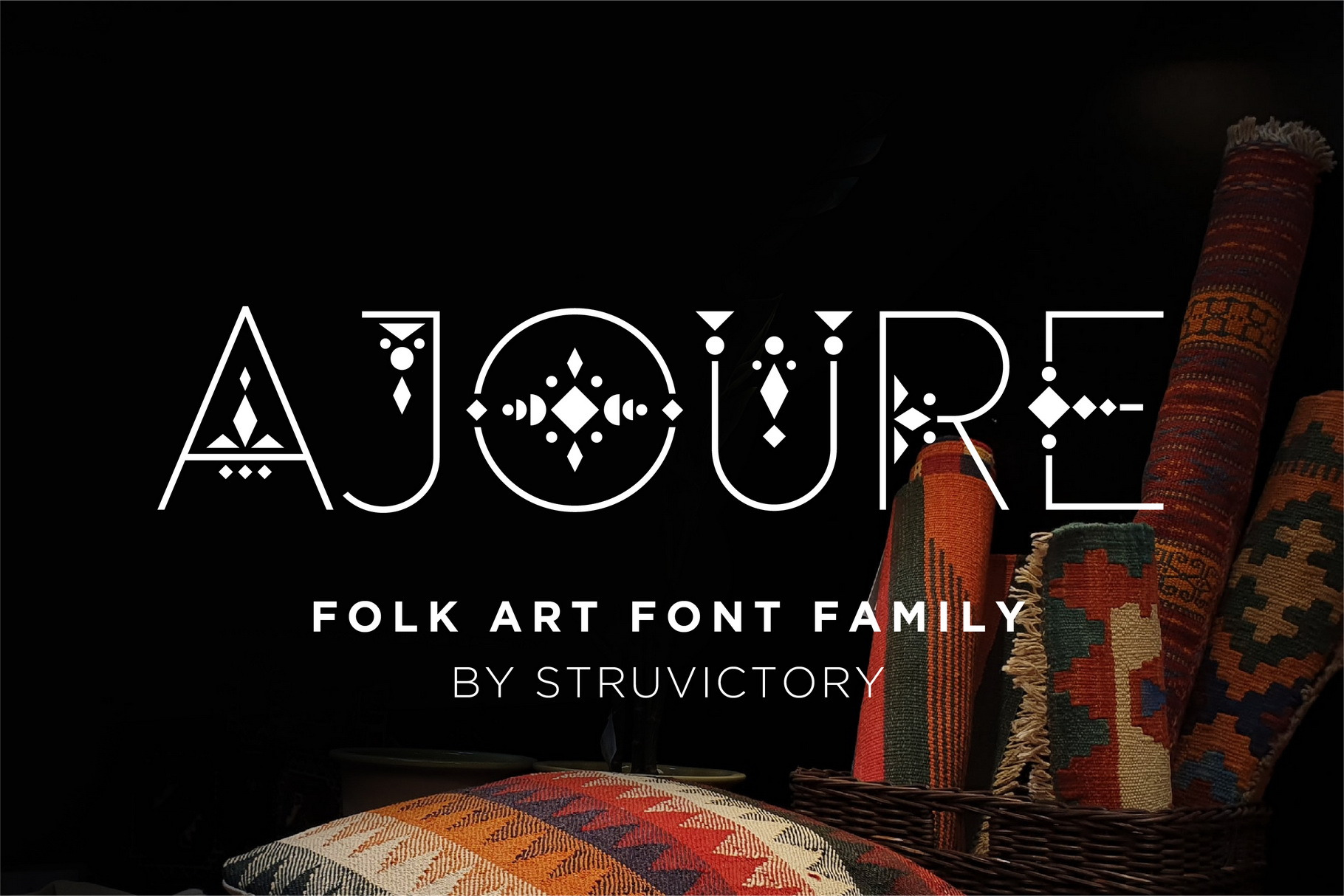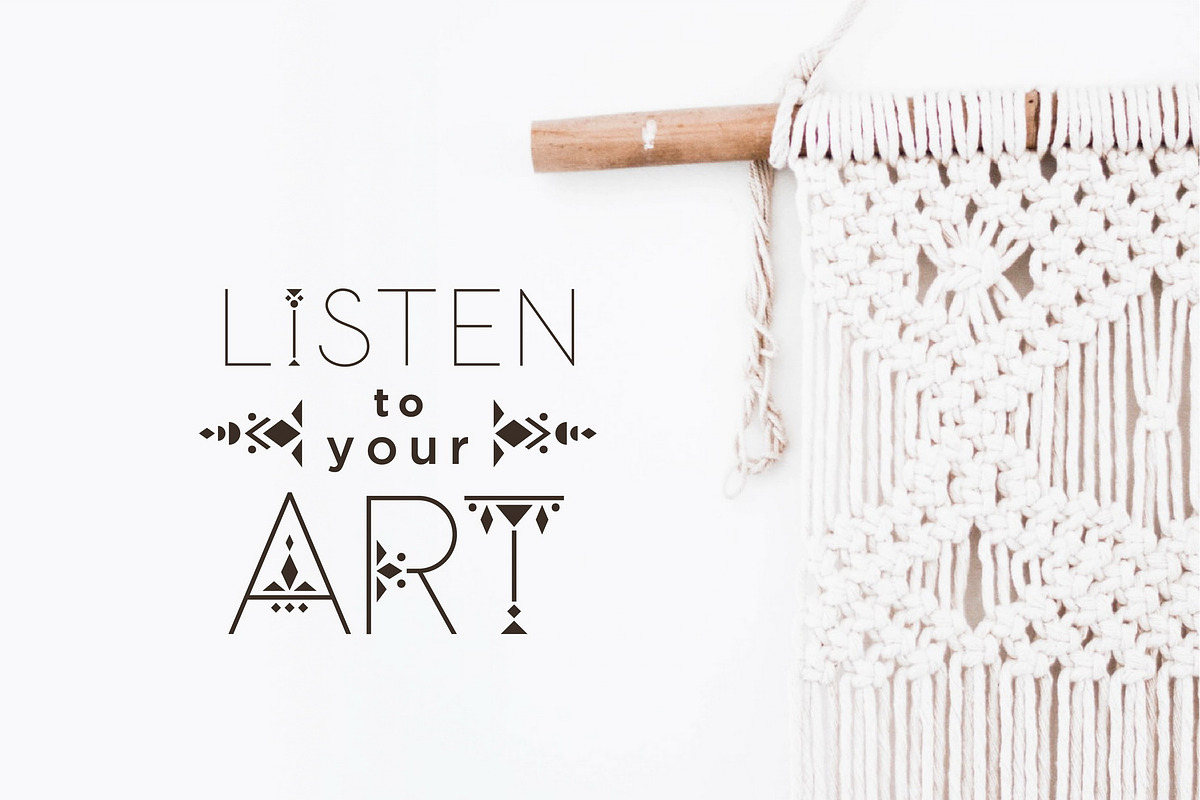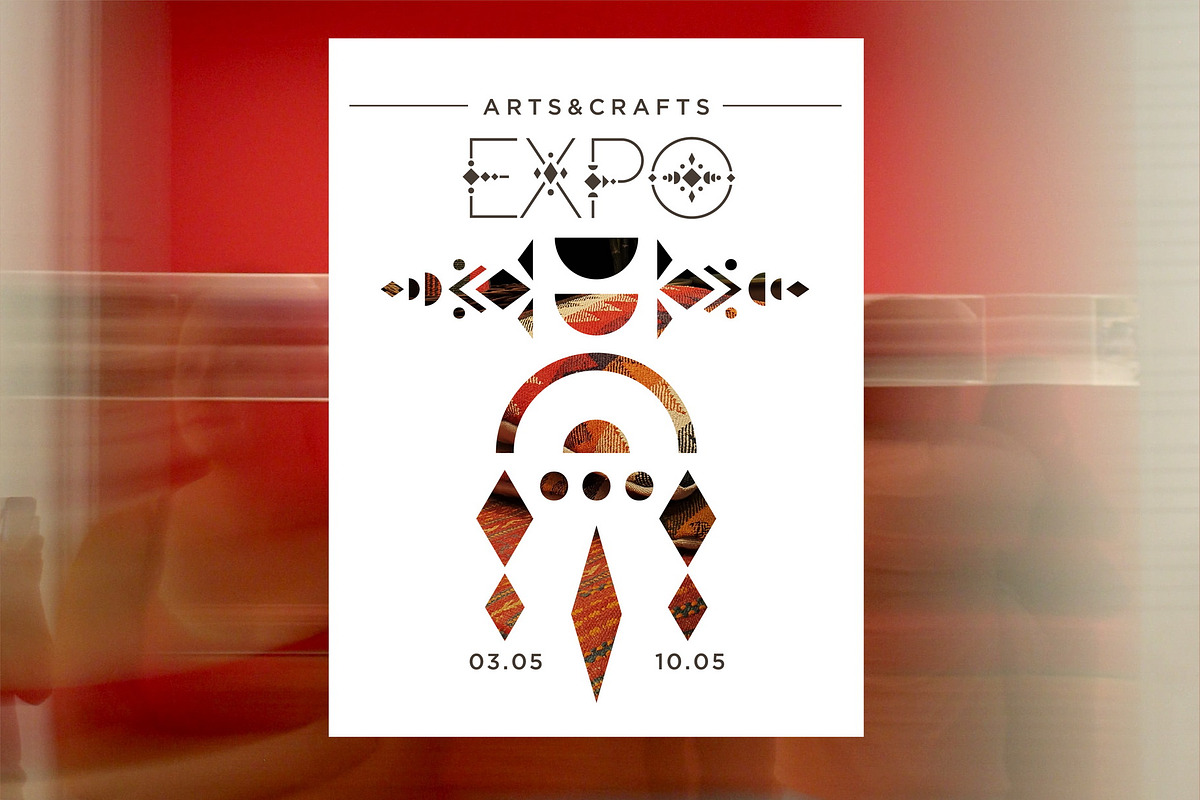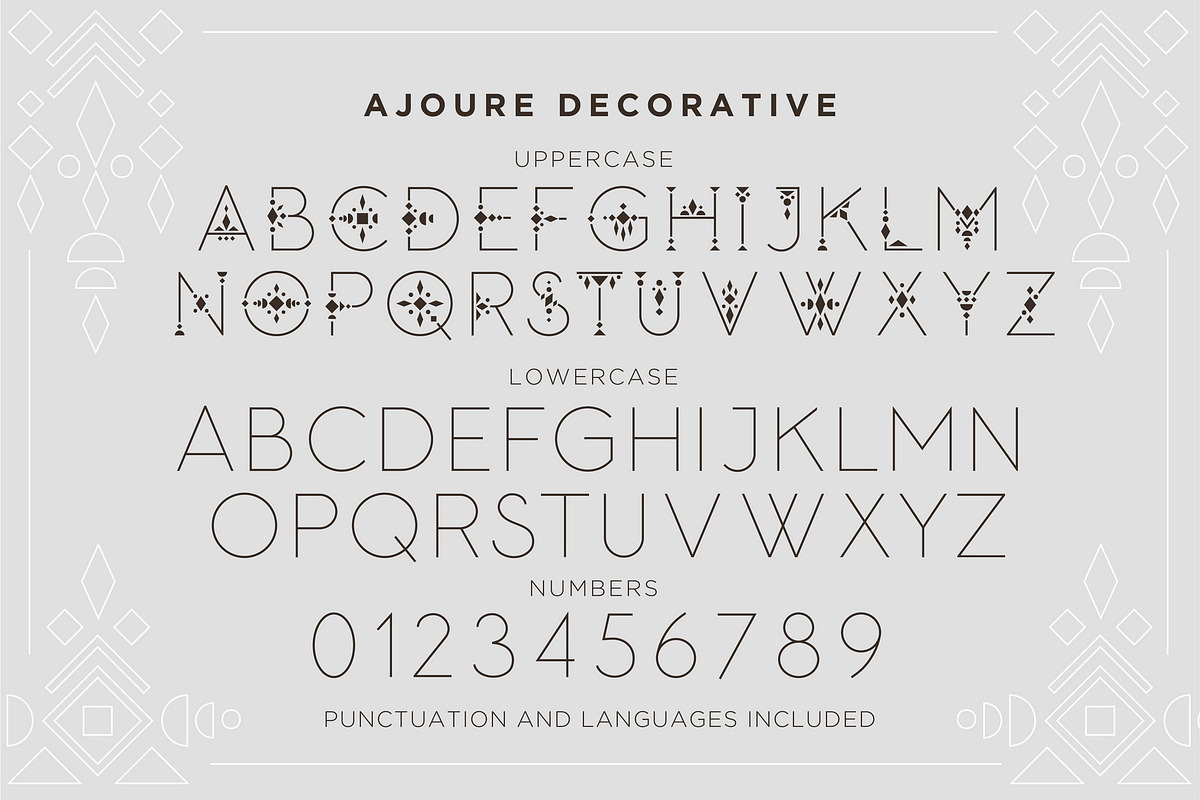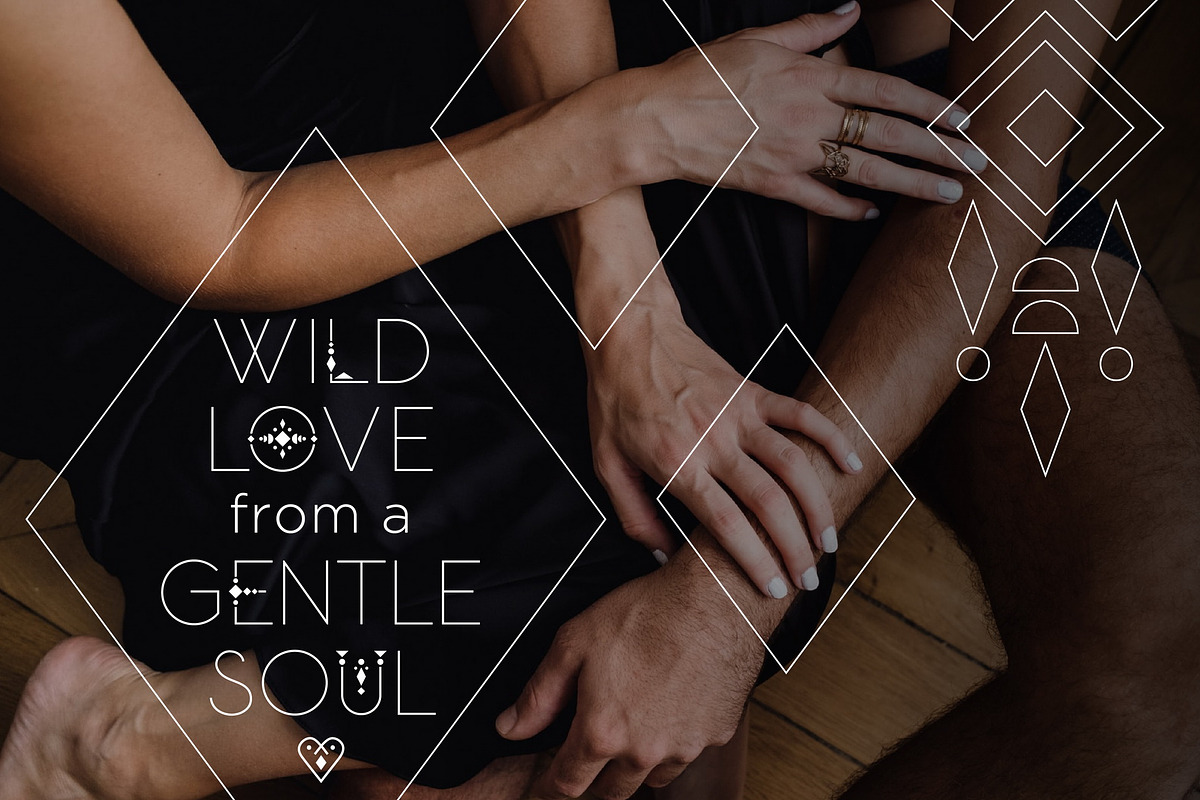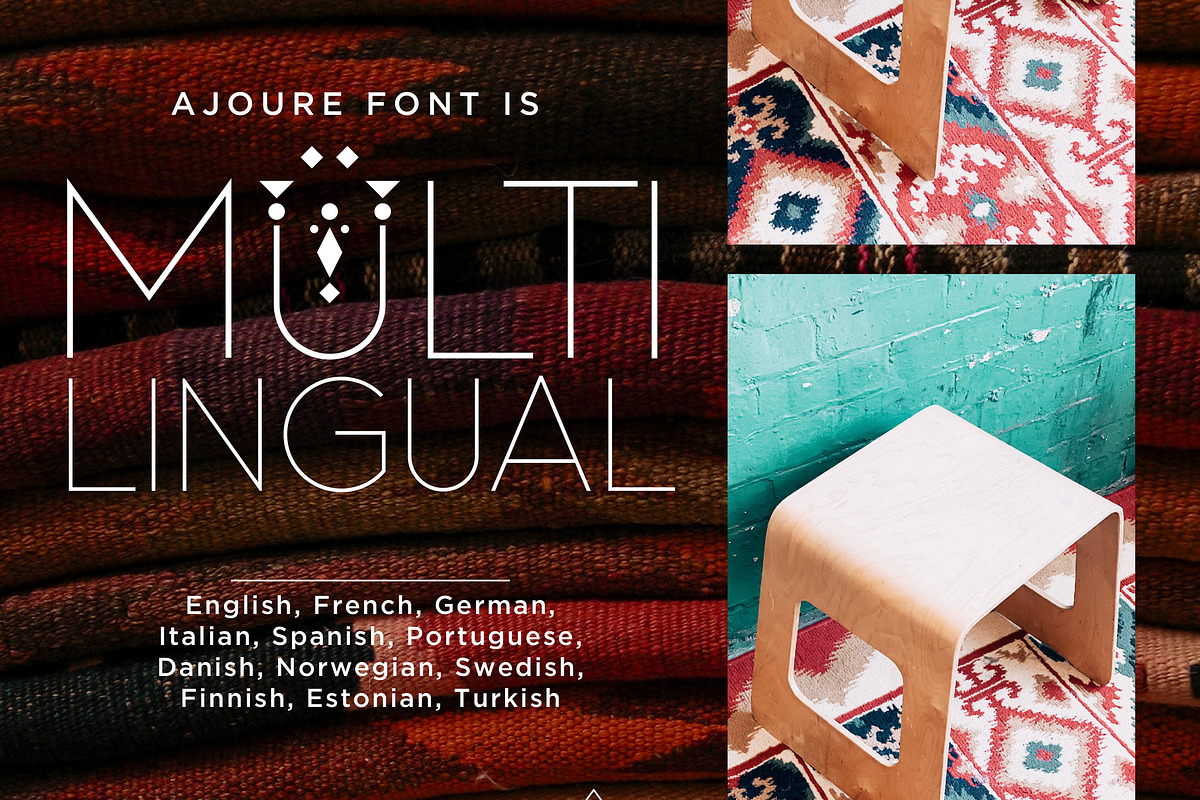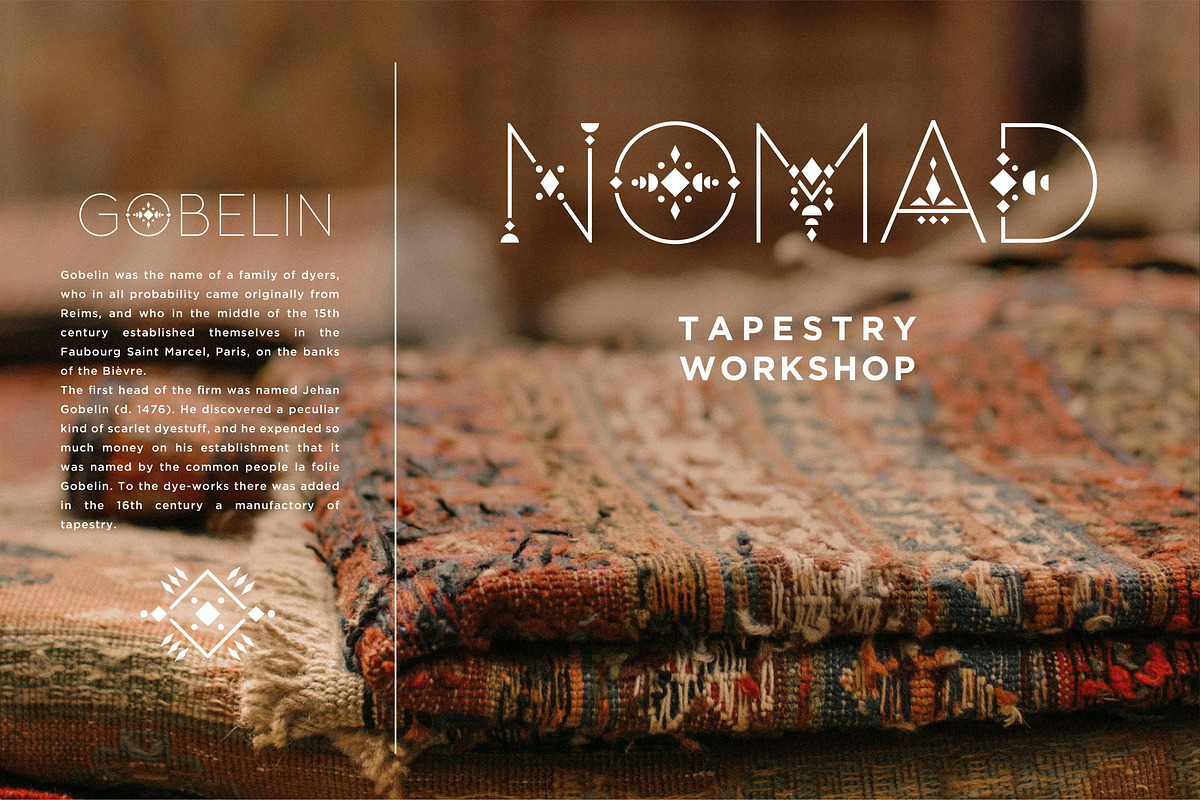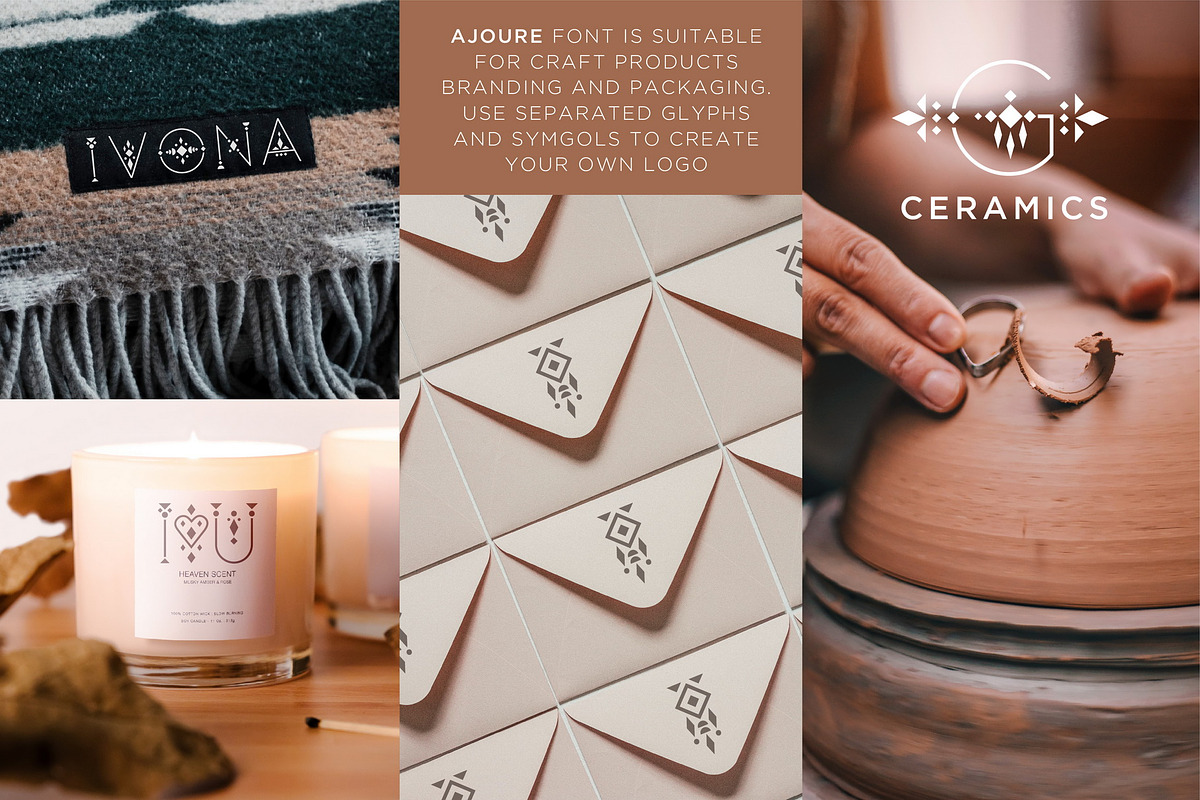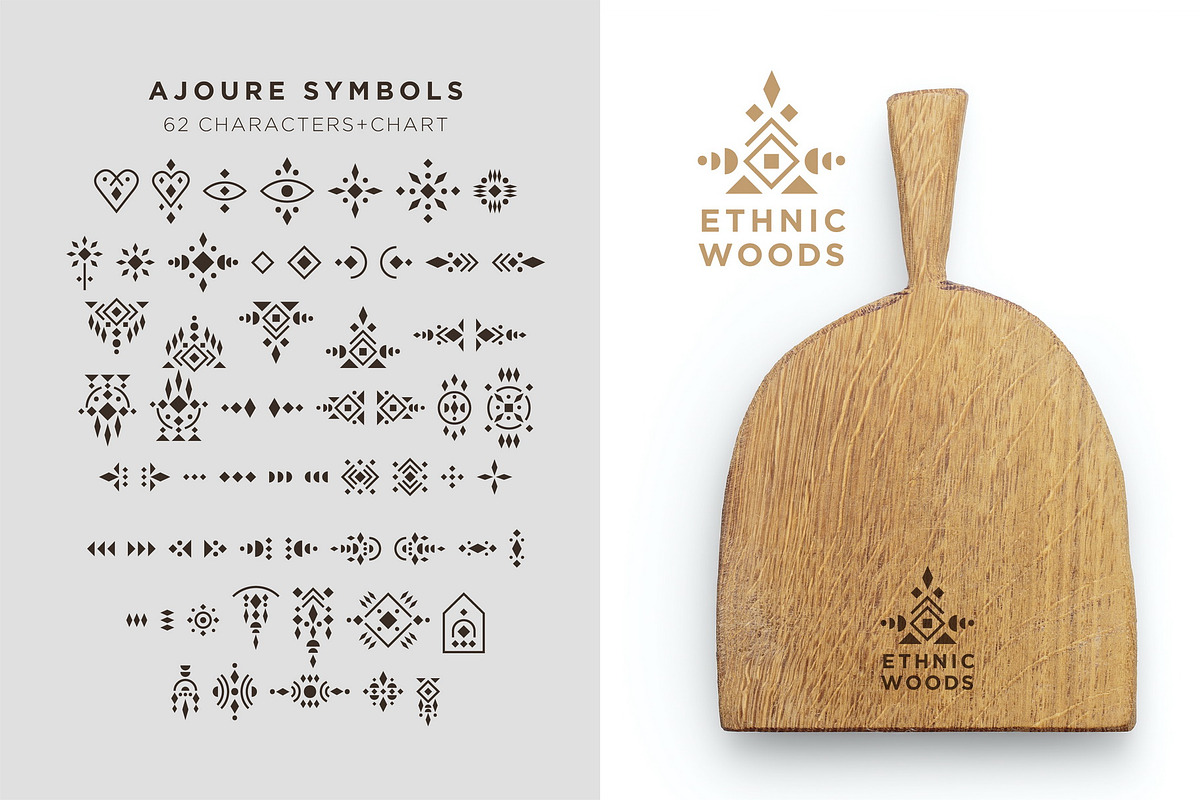
Ajoure - Folk Art Logo Font Family
Ajoure is a modern thin font inspired by folk aesthetics and decorated with geometric patterns. The typeface includes Decorative and Symbol versions. Ajoure Decorative is represented by thin line lowercase and ornate uppercase.
Ajoure font family is suitable for craft products branding and packaging (needlework, ceramics, jewelry, handmade soap ect.), events design, modern typographic posters. Use individual letters and symbols to create logos and monograms.
The font has extensive language support, it includes English, French, German, Italian, Spanish, Portuguese, Danish, Norwegian, Swedish, Finnish, Estonian, Turkish. Need to know if your language is supported? Type any words in the text box below and see if all characters you need are there.